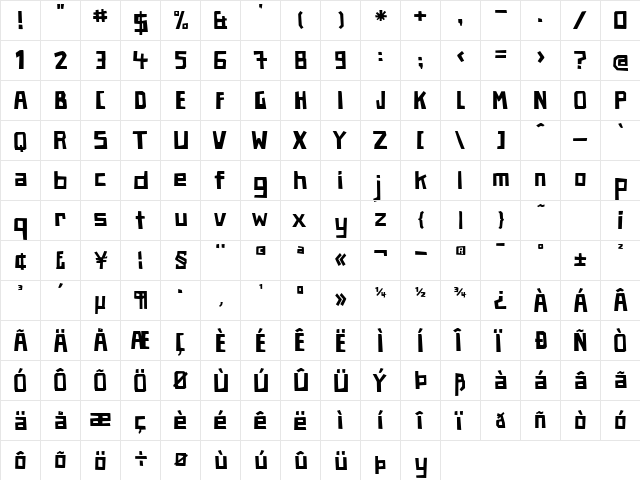
Paper Johnny Eins Regular Font Preview
Paper Johnny Eins Regular
Paper Johnny Eins Regular Font Details
Design Context for Paper Johnny Eins Typeface
Paper Johnny Eins is a composed and adaptable typeface that performs quietly and consistently across a wide range of design contexts.